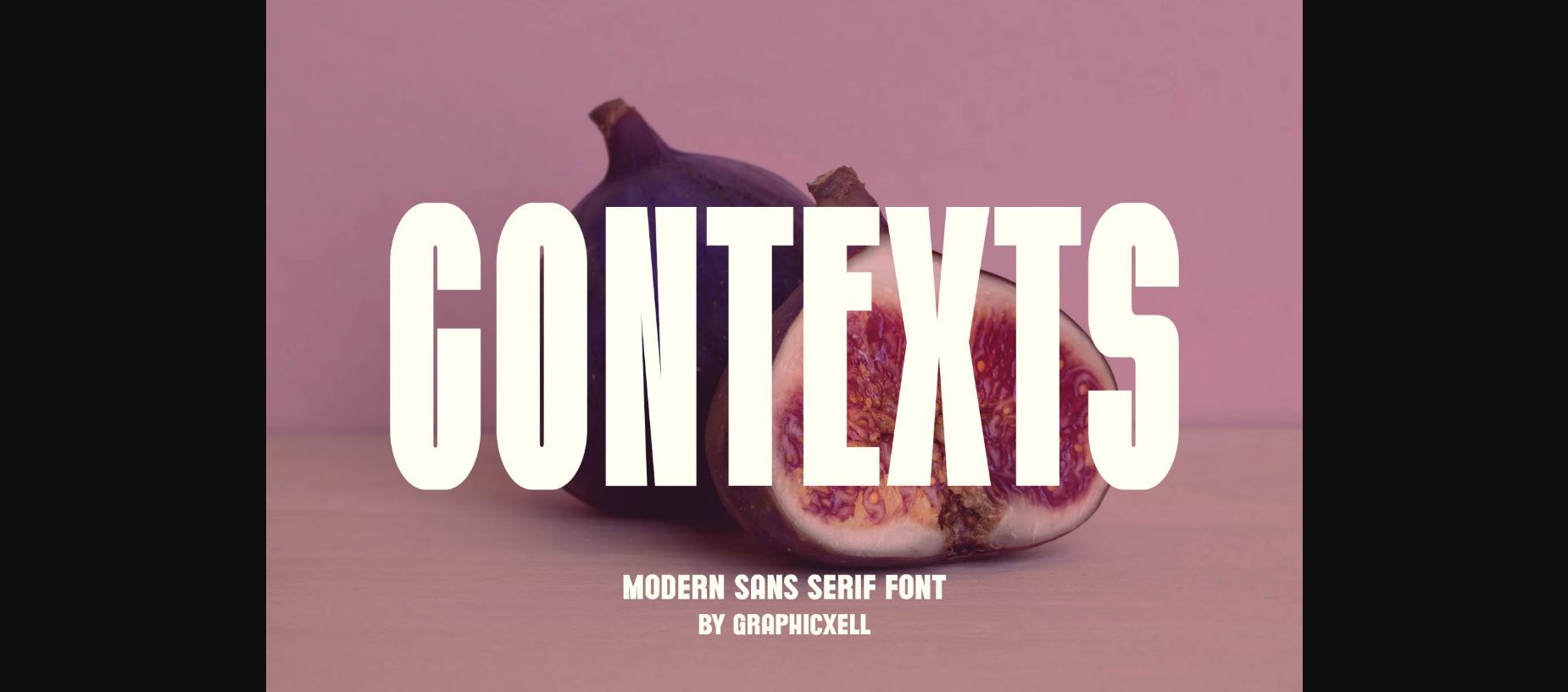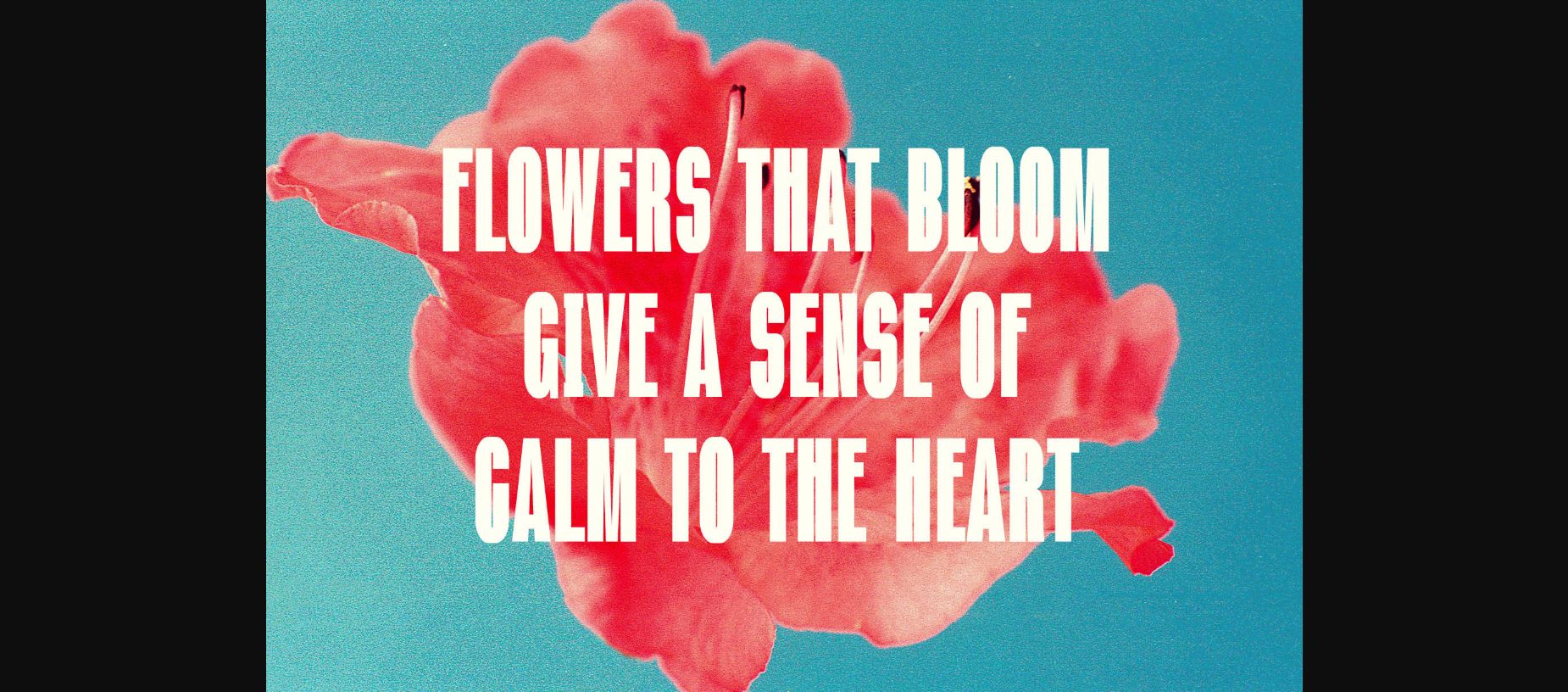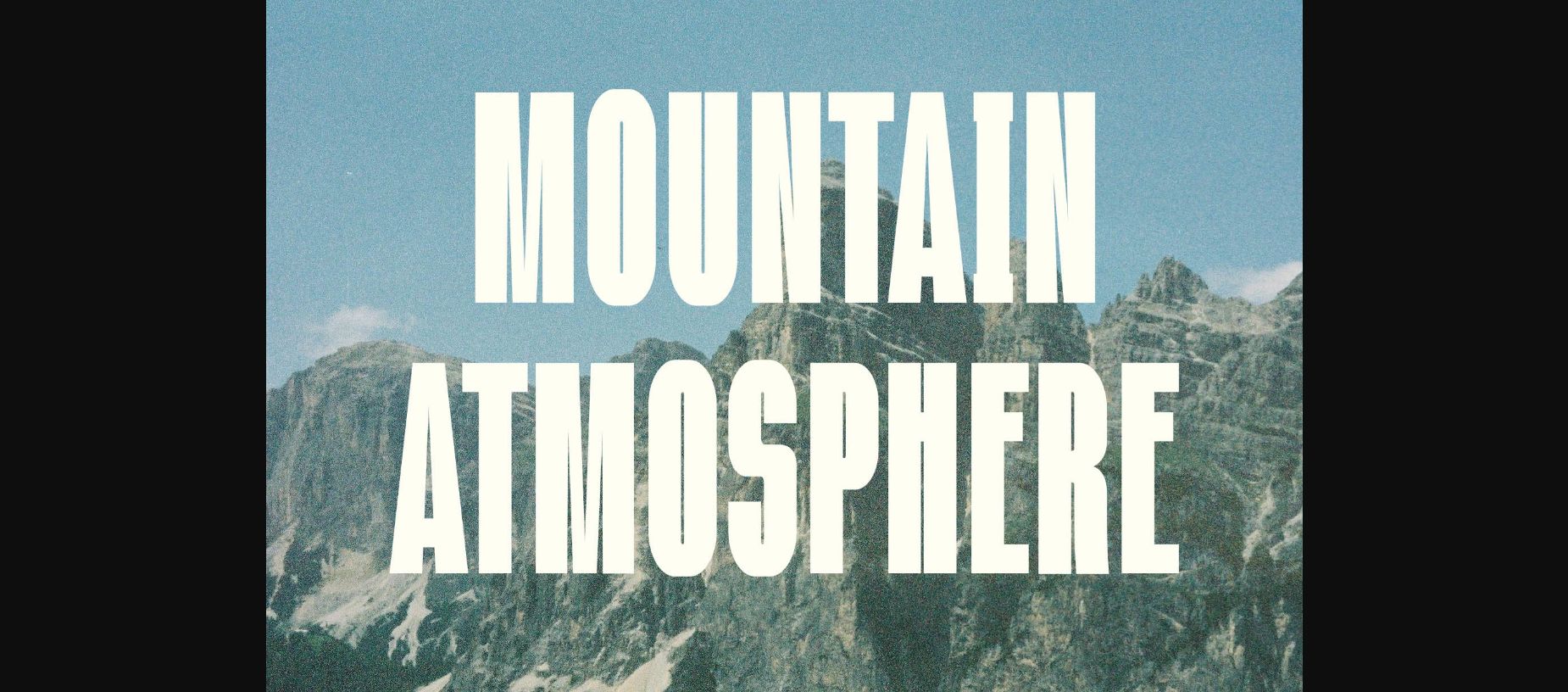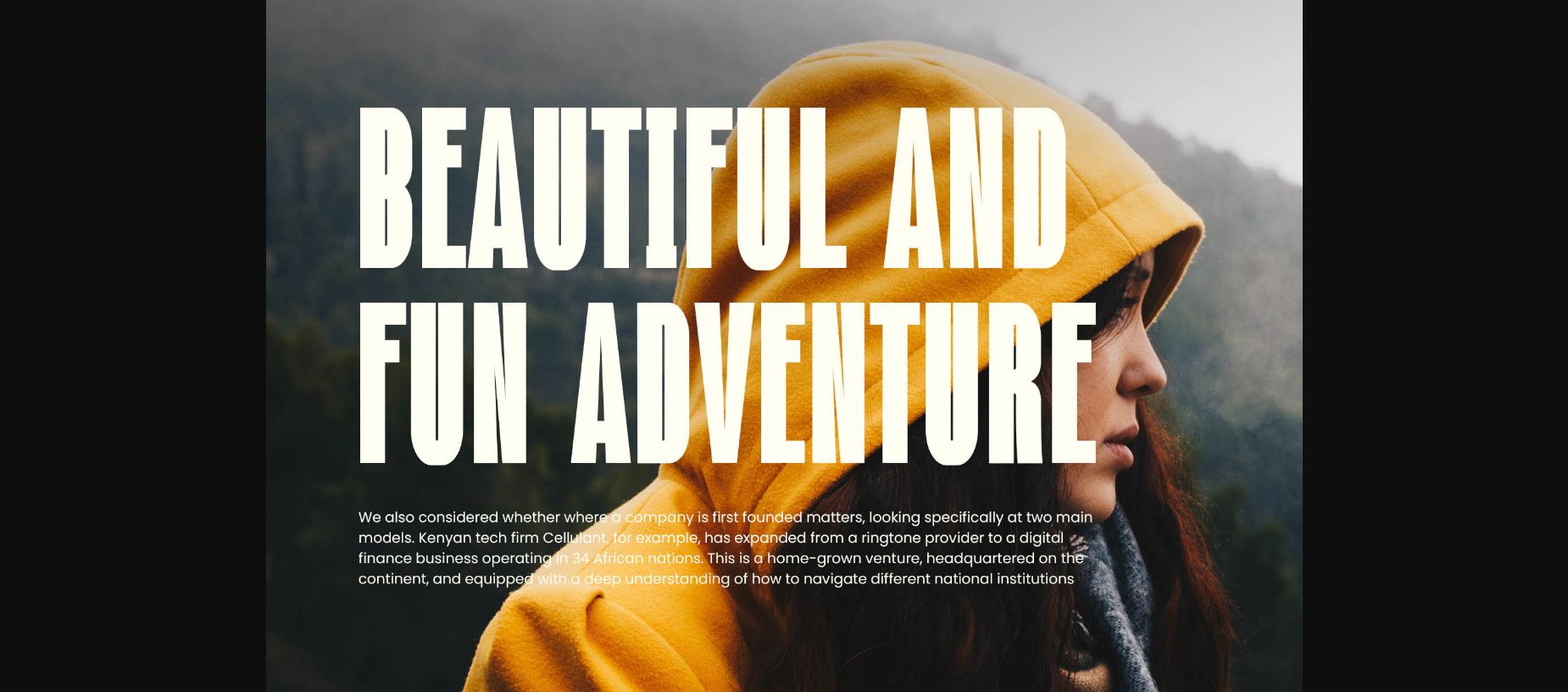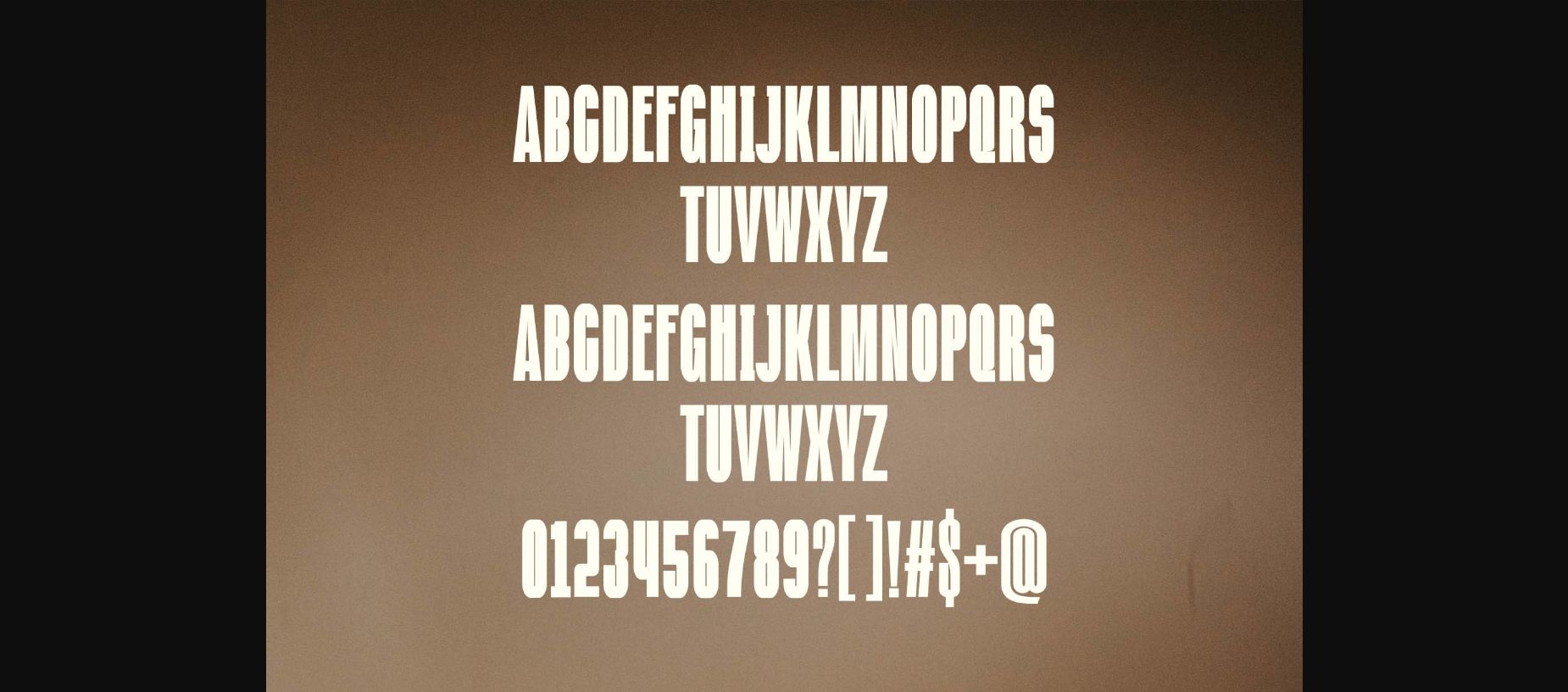
HomeSans Serif FontsContexts Font Sans Serif Fonts Contexts Font FacebookXPinterestWhatsApp 1 of 8 ... Contexts Font Poster 2... Contexts Font Poster 3... Contexts Font Poster 4... Contexts Font Poster 5... Contexts Font Poster 6... Contexts Font Poster 7... Contexts Font Poster 8... About Contexts Font Inspired by the famous minimalist logo, Contexts is perfect for the purposes of designing templates, brochures, videos, advertising branding, logos, invitations, layout designs, elegant crafting, beauty designs and so much more. DOWNLOAD NOW People also explored Beauty Font Banana Cupcake Font Mirabella Font BabehMoe Font Delabasto Hambu Radul Font Blaster Font Mitterlies Font Guttawa Font 396 0 TagsContexts Font Previous articleThrive FontNext articleMakes Font LEAVE A REPLY Cancel reply Comment: Please enter your comment! Name:* Please enter your name here Email:* You have entered an incorrect email address! Please enter your email address here Website: Save my name, email, and website in this browser for the next time I comment. Personal Use Free Girl Personal Use Free Read more about this font Jurnal Personal Use Free Read more about this font Starter Personal Use Free Read more about this font Pattern Personal Use Free Read more about this font BLOG How to Install and Use Fonts on Windows, macOS, and Web Projects How to Install and Use Fonts on Windows, macOS, and Web Projects Fonts are a crucial part of design and branding. Whether you’re designing a... Top 10 Handwritten Fonts That Elevate Your Designs Best Fonts for T-Shirt Design – Top 2025 Picks Transform Your Website: Elevate Your Typography with 7 Best Web Font Generators